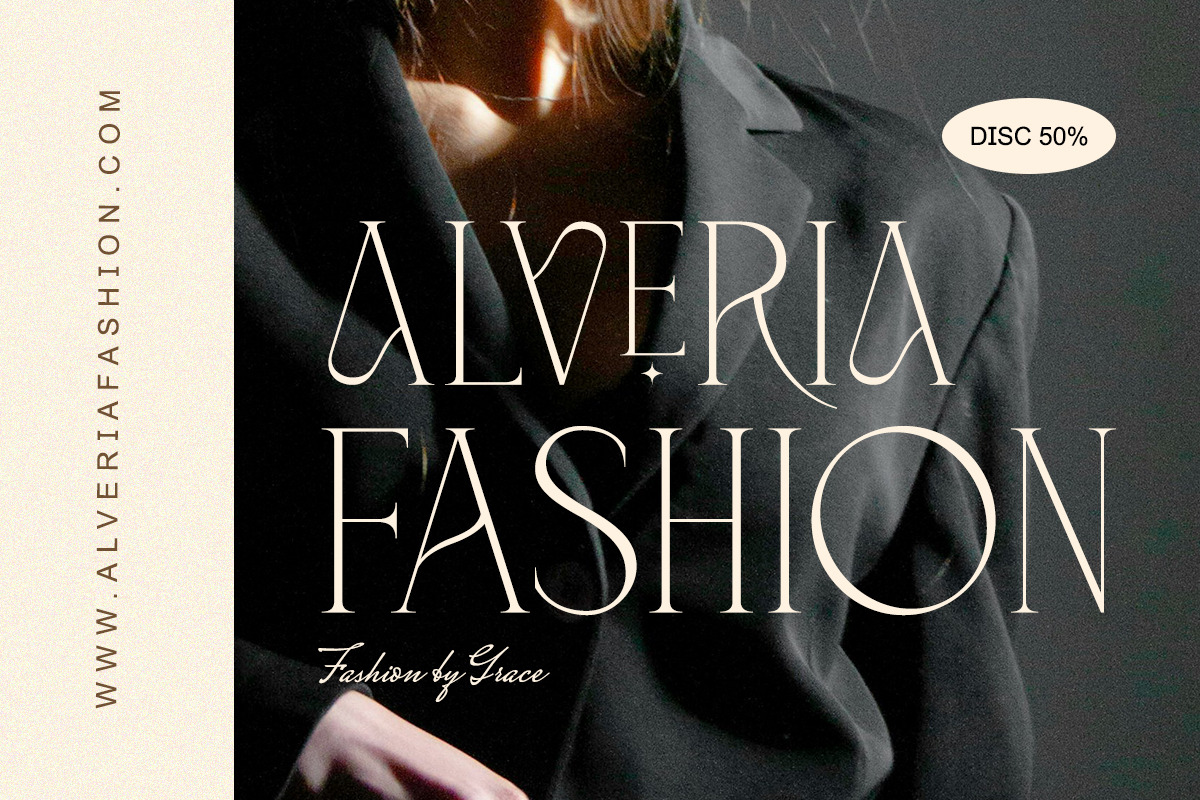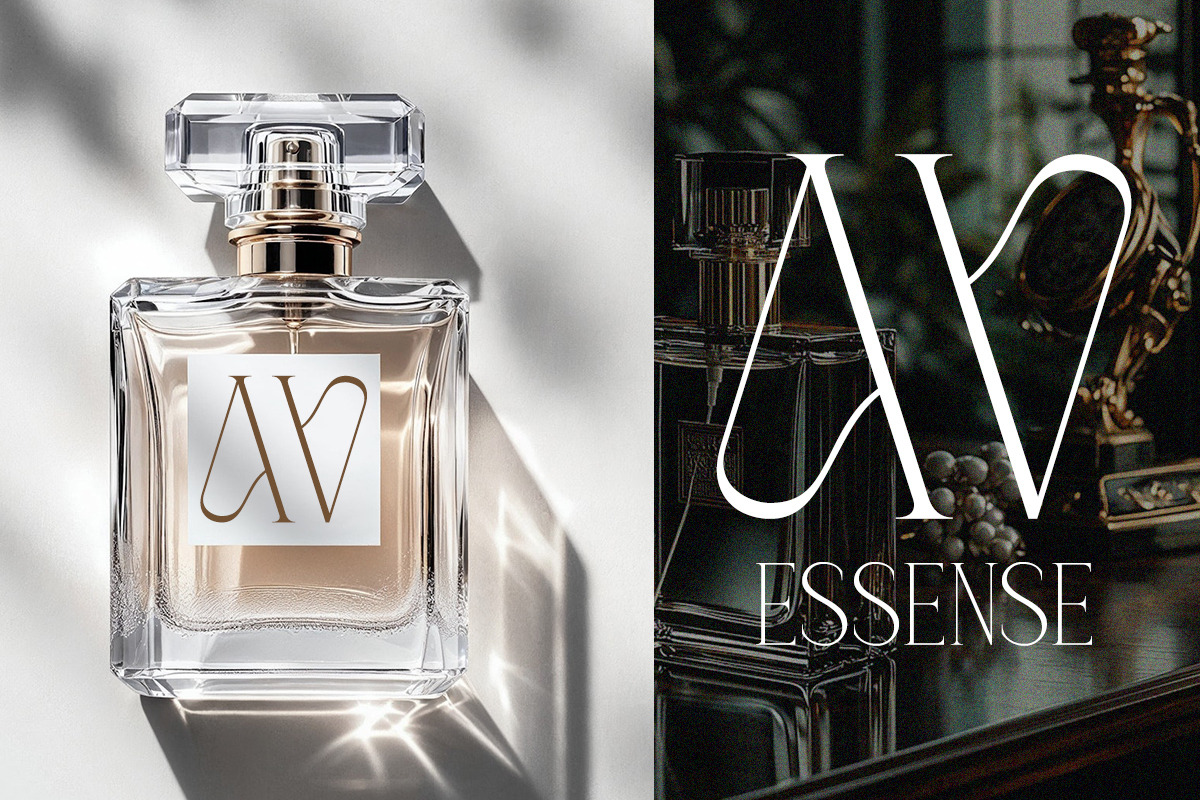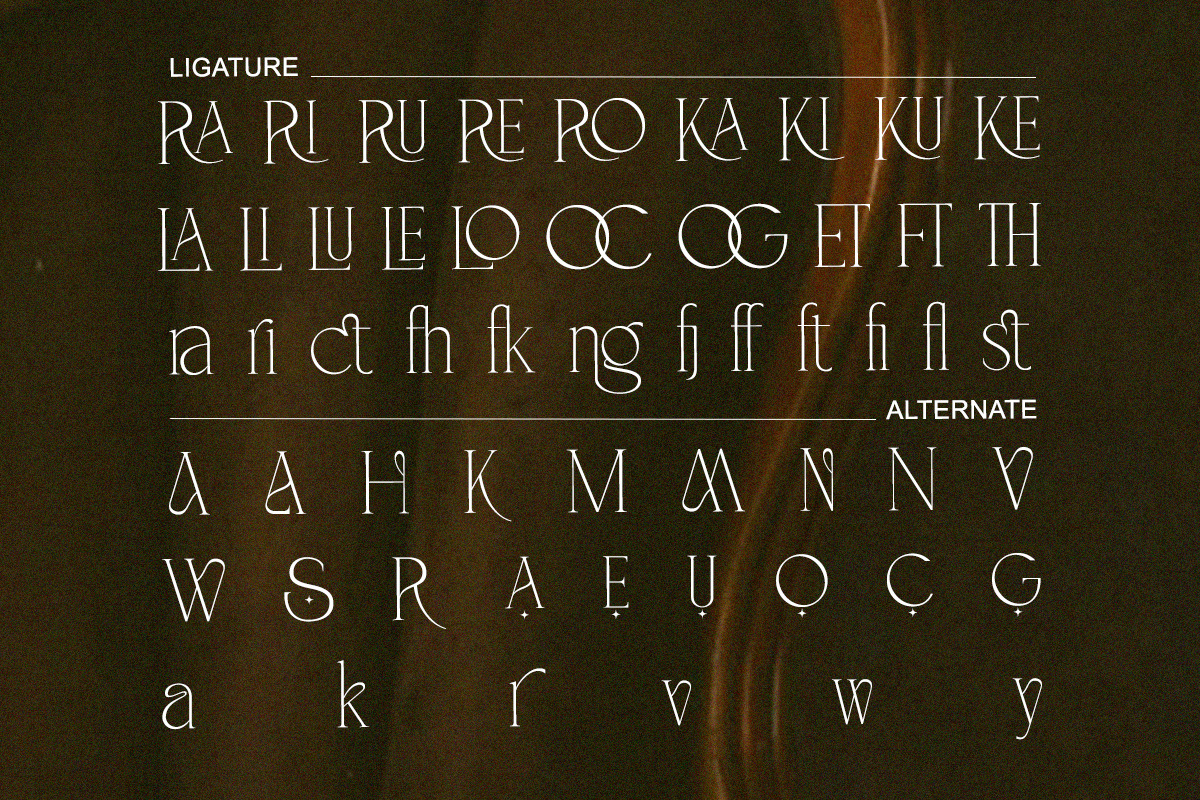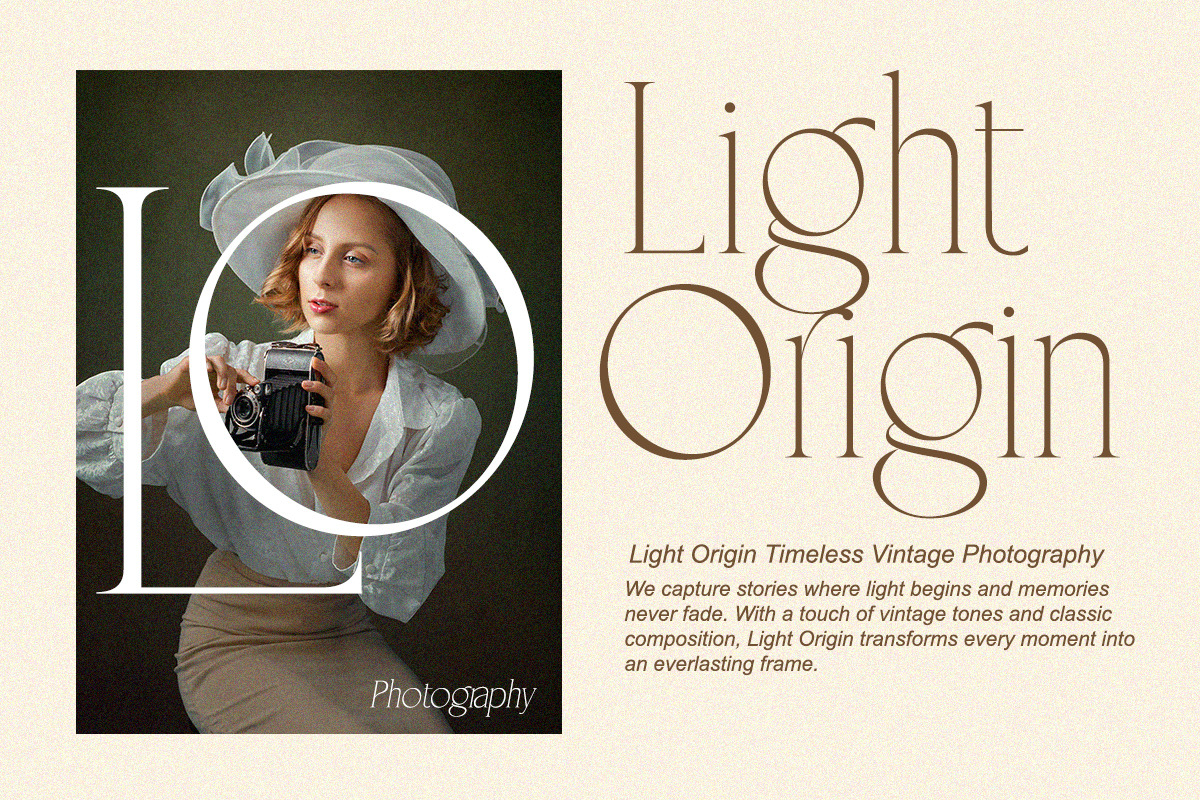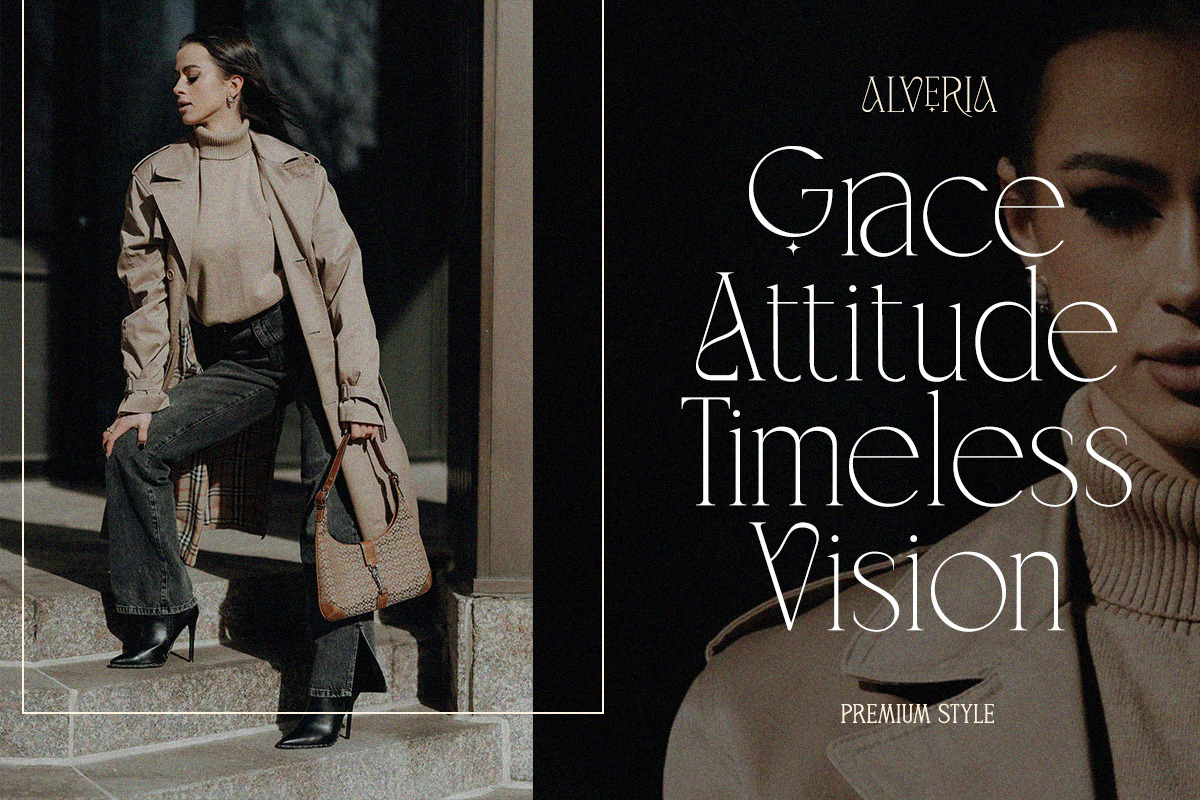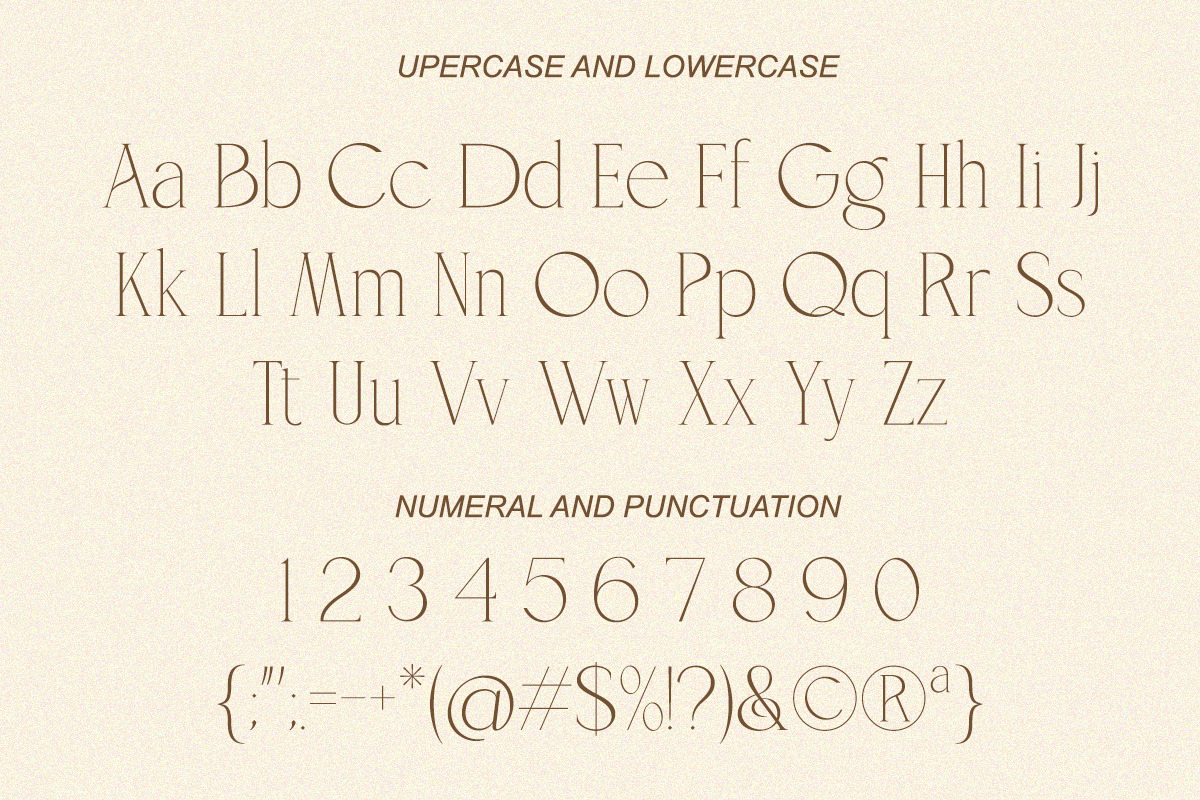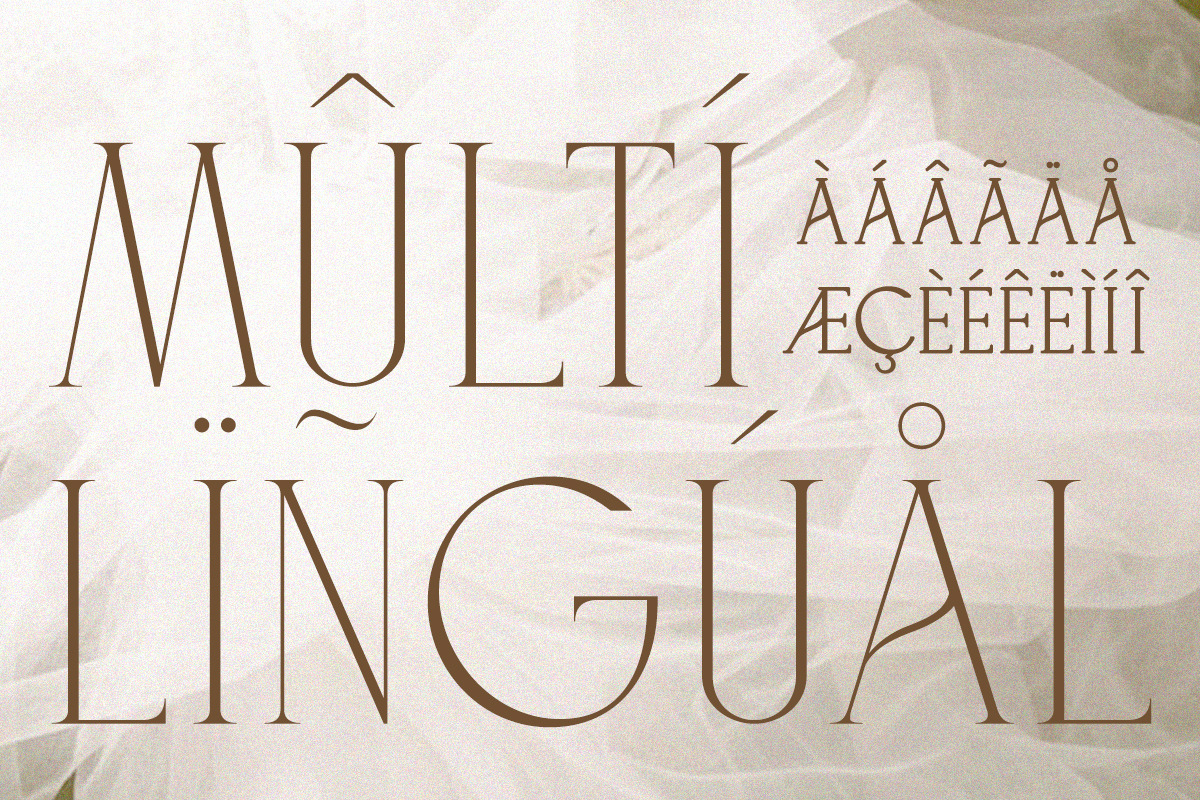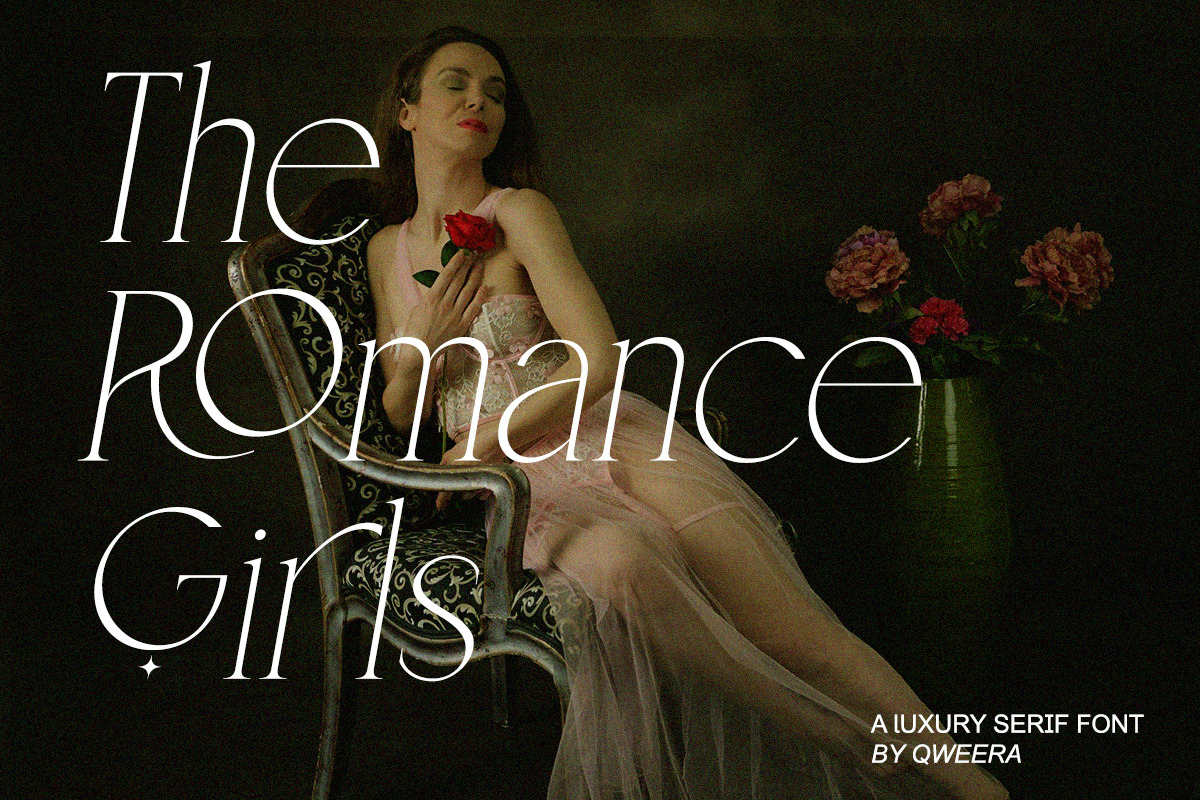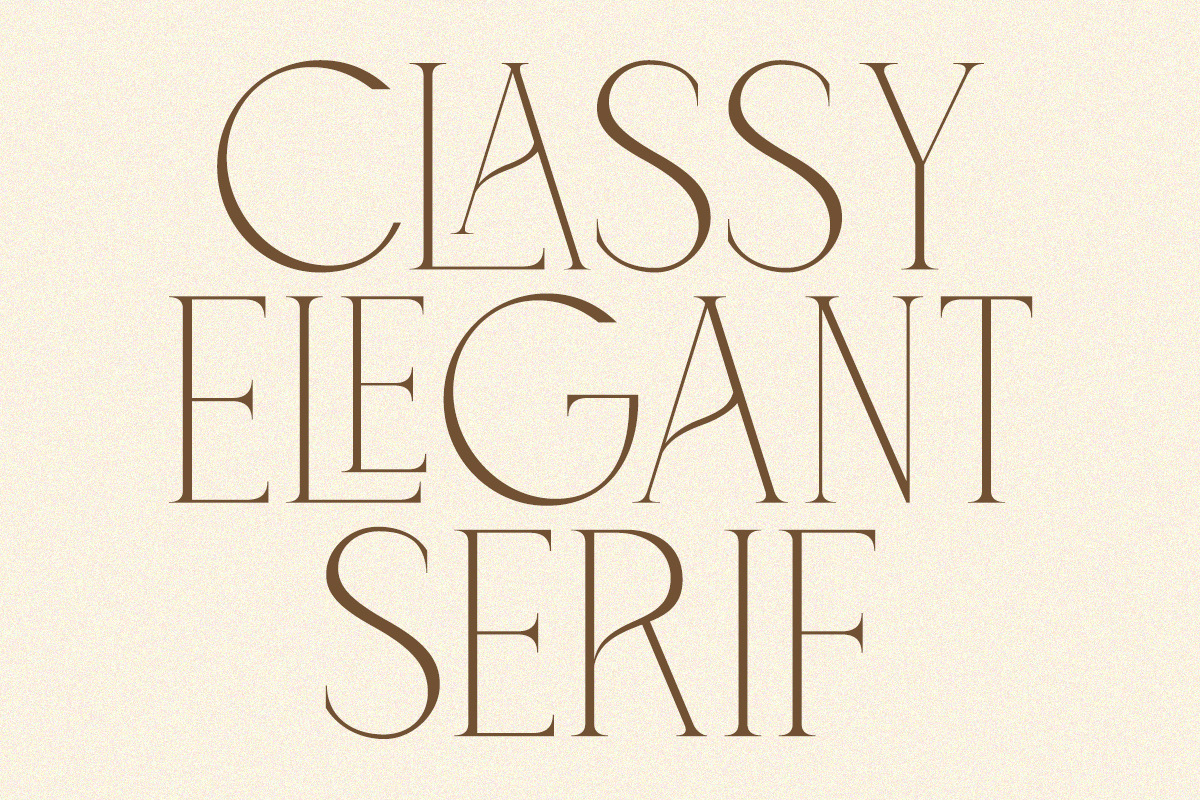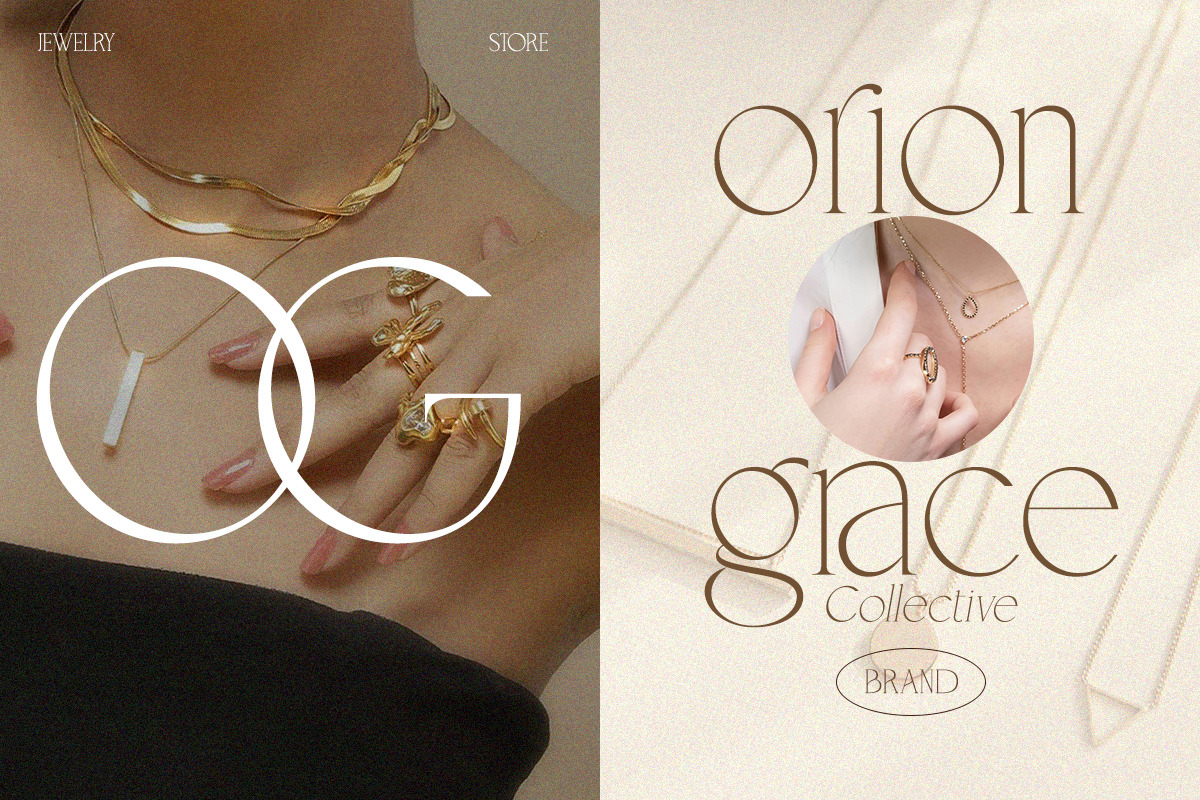
Velorum - Modern Elegant Luxury
Velorum is a luxurious serif typeface rooted in artistic legacy and refined modernism.
Its elongated letterforms and graceful curves deliver a dramatic statement without sacrificing legibility. Velorum is designed for creatives who demand both beauty and class in their typography. Every glyph is hand-adjusted for perfection, offering stylistic alternates that embody elegance and timeless sophistication.
Perfect for high-end branding, editorial spreads, fashion campaigns, and fine art galleries. With Velorum, your design will whisper power and prestige.
- Regular & Italic
- Alternates & discretionary ligatures
- Balanced contrast & fine detail
- Fine art exhibition branding
- Editorial and fashion magazines
- Feminine product packaging
- Classy invitations & menus
- Minimalist luxury branding
- Premium web & print design
Design like royalty with Velorum.